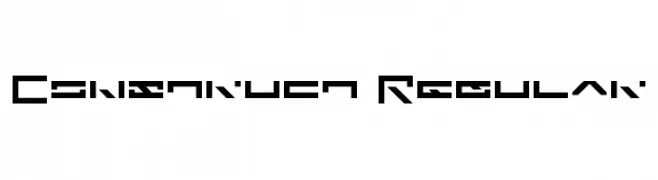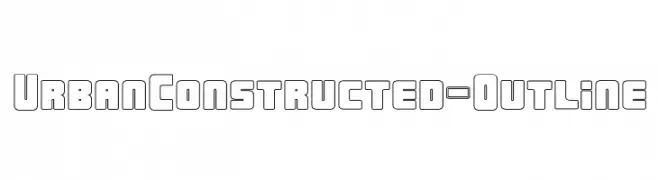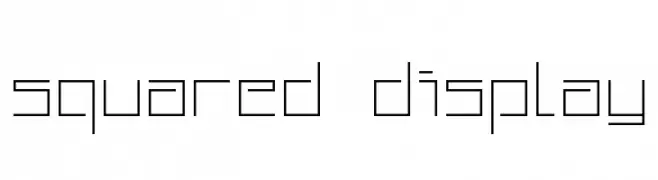
A bold, geometric font with sharp angles and smooth curves, offering a modern and dynamic style.
A geometric, minimalist font with thin, angular strokes and a futuristic look.
A bold, geometric outline font with a modern, industrial feel.
A geometric, squared font with a modern and minimalist design.
A futuristic, geometric font with angular lines and a modern aesthetic.
A geometric and precise font with sharp, angular shapes.
A geometric, futuristic font with bold, angular lines and a modern aesthetic.
A geometric, double-line font with a modern and structured appearance.